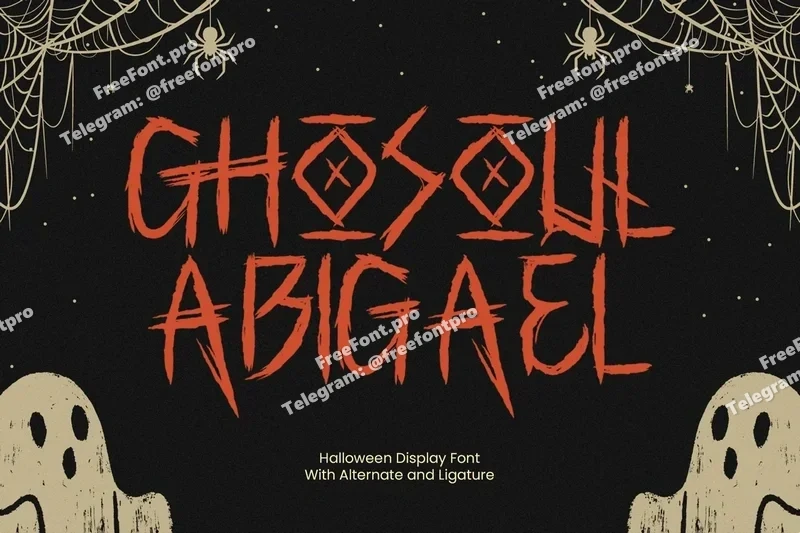
Ghosoul – Halloween Display Typeface
Ghosoul is a creepy, chaotic halloween display typeface that captures the eerie spirit of horror nights and haunted tales. Inspired by hand-scratched occult marks and slashed wood carvings, it delivers a raw, gritty personality for dark-themed visuals. With jagged strokes and unpredictable edges, Ghosoul injects instant fear and tension into posters, titles, packaging, signage, and more.
Ligatures & stylistic alternates
Perfect For
Halloween posters & event flyers
Horror title sequences & movie-style graphics
Haunted house branding & signage
Dark packaging & label design
Game UI overlays & video thumbnails
Witchcraft, vampire, or supernatural themes
Gothic art & illustration projects